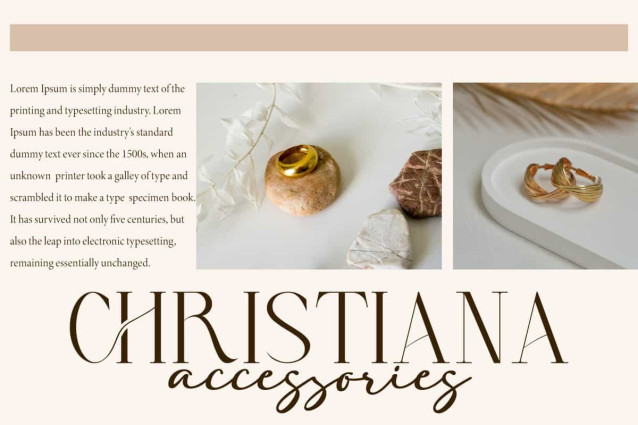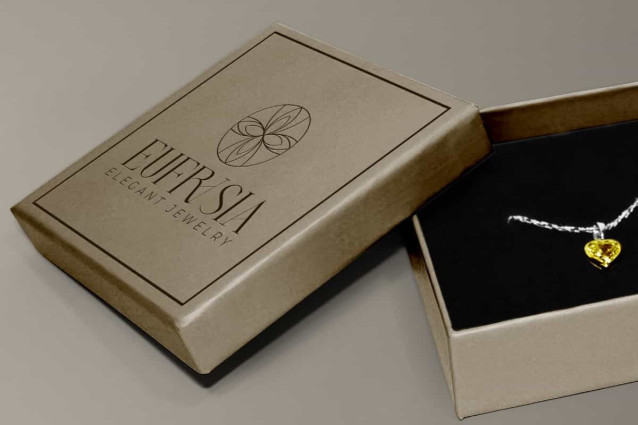
Irvanie Chalia Font
Irvanie Chalia Font is a luxurious serif display font with a distinctive design that combines classic and modern aesthetic. This font will be perfect for any projects, can be used for advertisement, brand image, custom design, invitation, label, layout design, quotes, stationery, template design, website, and more!
Irvanie Chalia Font includes full set of Uppercase and Lowercase Basic Characters, Numerals, Punctuation, Symbol, and Ligature character. This font has fine details and unique curves that create an elegant impression. Making it a perfect choice for a variety of fields, such as event or wedding organizer, fashion, accessories and jewelry, beauty product, florist, furniture, real estate, spa salon, etc.